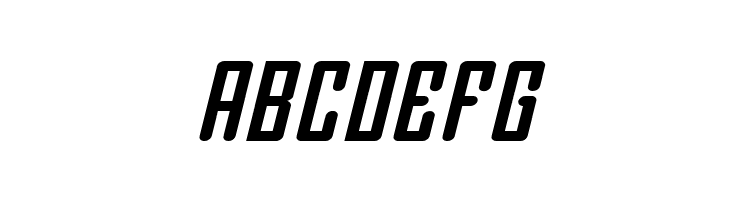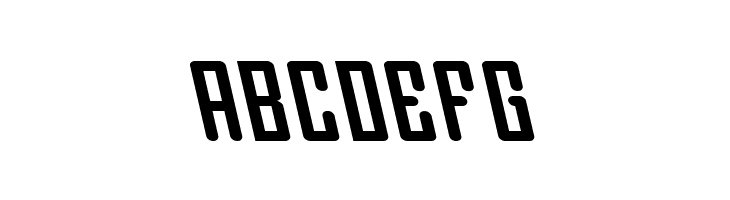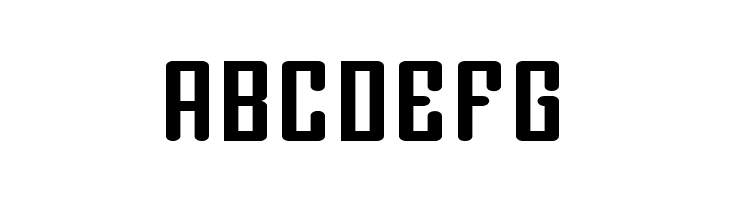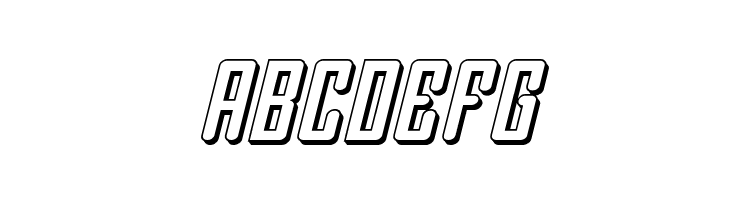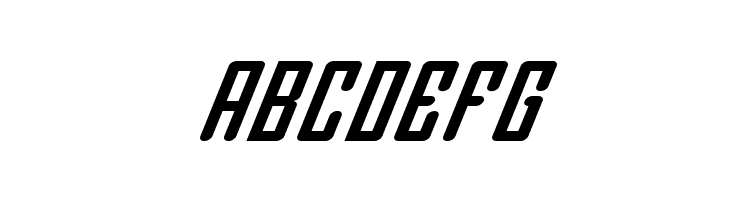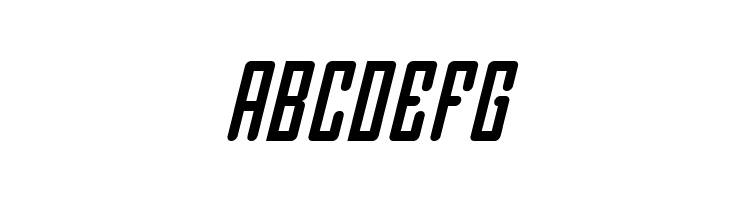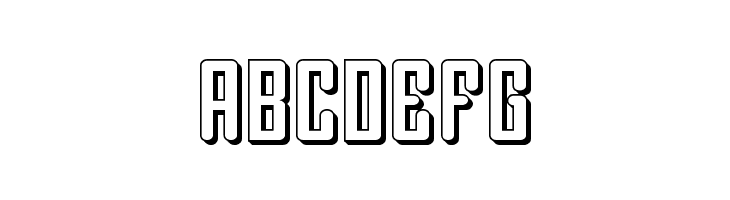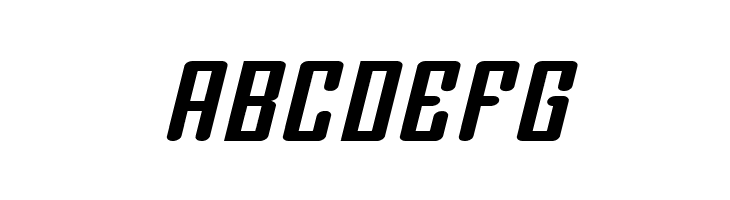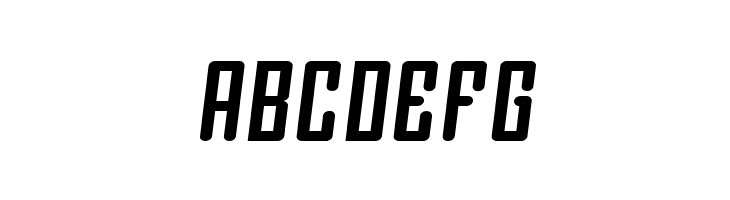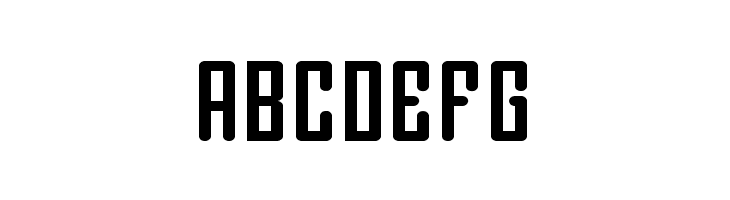
Darklighter Italic Font
Darklighter Font
Darklighter Condensed Font
A bold, condensed, and geometric font with a modern aesthetic.
Darklighter Expanded Italic Font
A bold, italicized font with expanded width and modern style.
Darklighter Semi-Italic Font
A modern, semi-italic font with bold, condensed characters and a sleek, dynamic style.
Darklighter Super-Italic Font
A bold, italic, and condensed font with a modern, geometric style.
Darklighter 3D Italic Font
A bold, 3D italic font with a modern, dynamic style.
Darklighter Expanded Font
A bold, expanded, and geometric font with a modern style.
Darklighter Condensed Italic Font
A modern, condensed, and italicized font with consistent stroke thickness.
Darklighter 3D Font
A bold, 3D outlined font with a modern, geometric style.
Darklighter Leftalic Font
A bold, modern font with a leftward slant and geometric design.